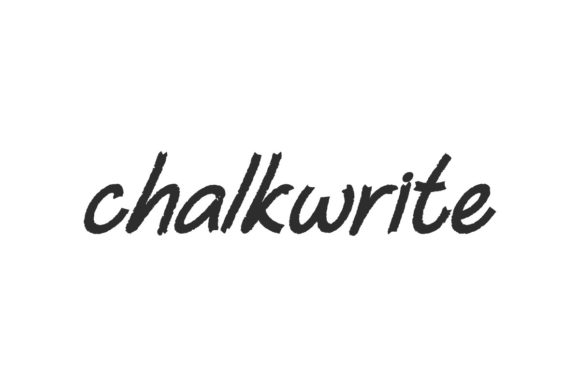
Prepare to be mesmerized by Chalkwrite Font, a captivating script font that evokes the allure of vintage comics. Its enchanting curves dance across your designs, leaving a trail of nostalgia and sophistication.
With Chalkwrite Font, your words will leap from the screen, commanding attention. Its timeless appeal is perfect for branding, editorial designs, and any project that demands a touch of retro charm. Experience the magic of a font that transports you to a world of wonder and imagination.
Indulge in the allure of Chalkwrite Font and let your creativity soar. Its versatility knows no bounds, inviting you to experiment and craft designs that are uniquely yours. Whether you're a seasoned designer or a budding enthusiast, Chalkwrite Font empowers you to create masterpieces that will leave an unforgettable mark.